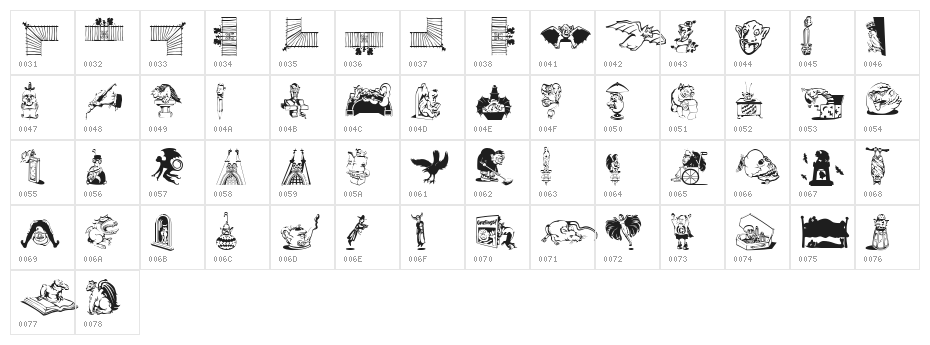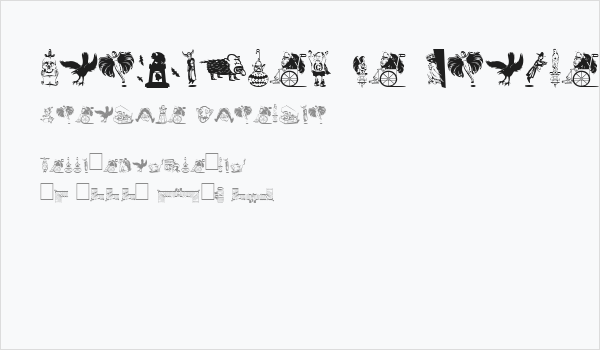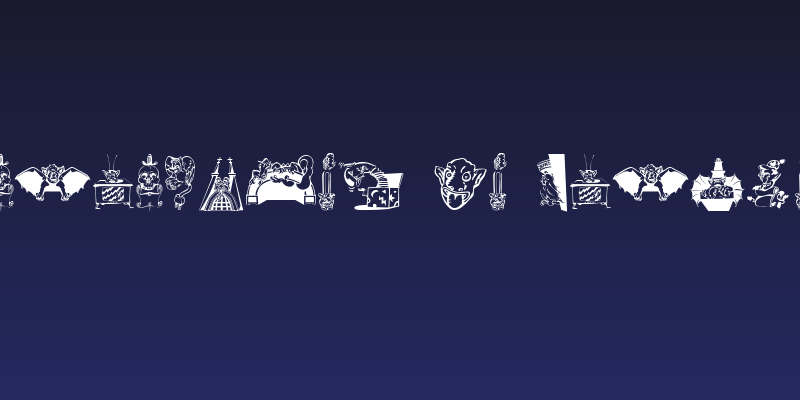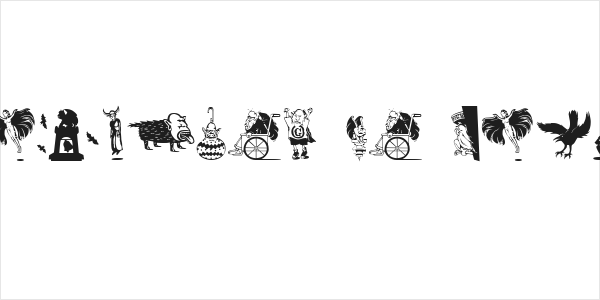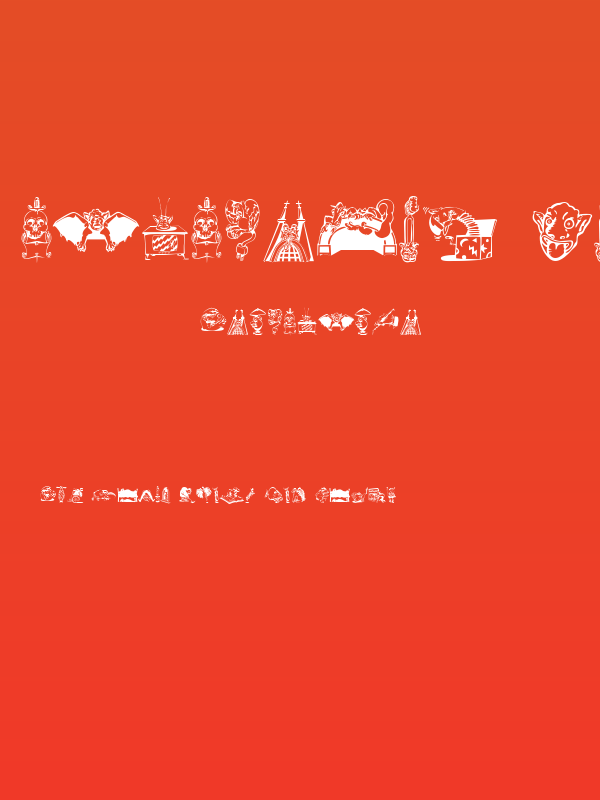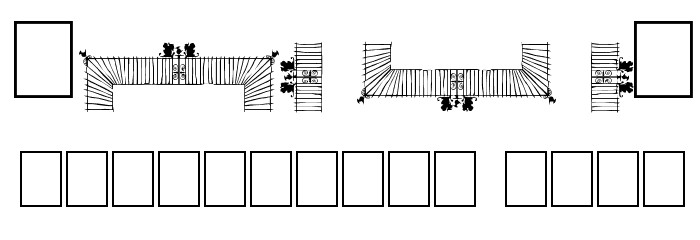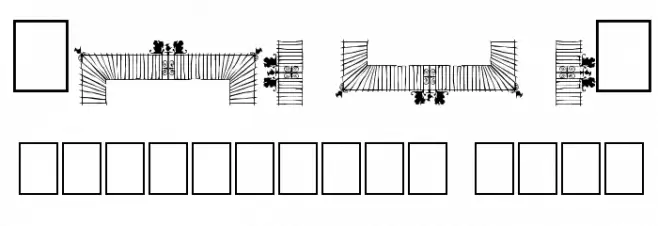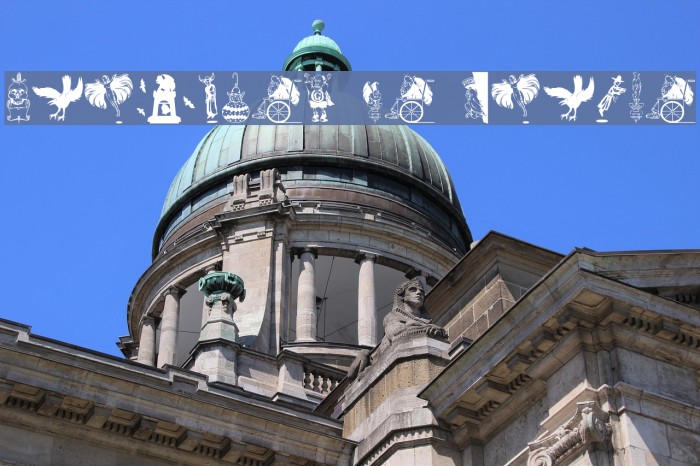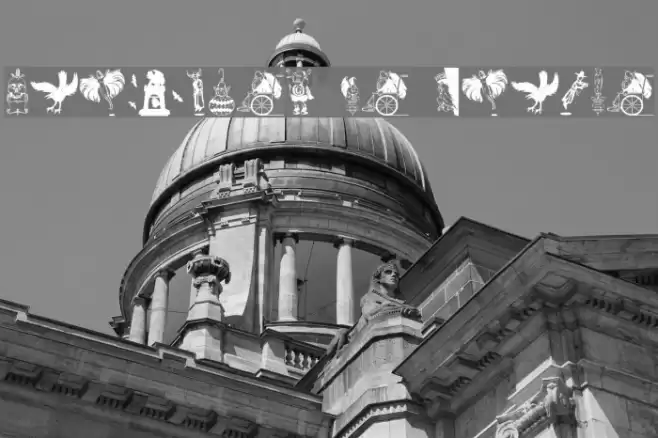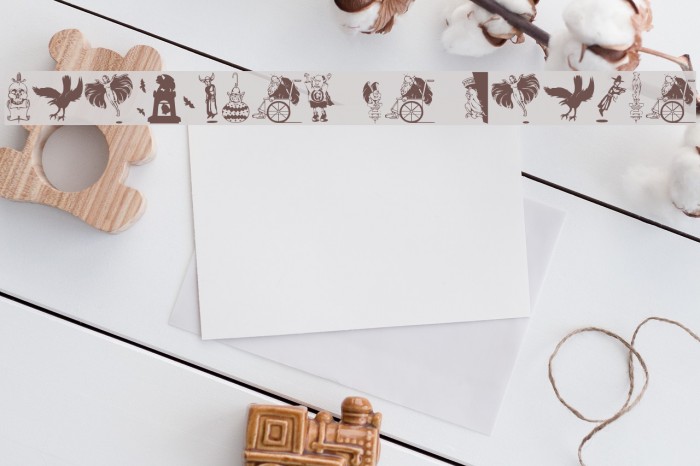
Gargoyles de France Font
Gargoyles de France Description
This is not a traditional font but rather a collection of whimsical and detailed illustrations featuring gargoyles and other fantastical creatures. Each character is represented by a unique and intricate drawing, showcasing a variety of poses and expressions. The style is playful and imaginative, with a strong emphasis on creativity and humor. These illustrations are more akin to decorative artwork than a functional typeface, making them suitable for specific thematic projects rather than general text use.
| Use Case | Decorative illustrations, themed designs. |
| Proposed Projects | Ideal for themed graphic design projects, children's books, fantasy-themed posters, or decorative elements in creative publications. |